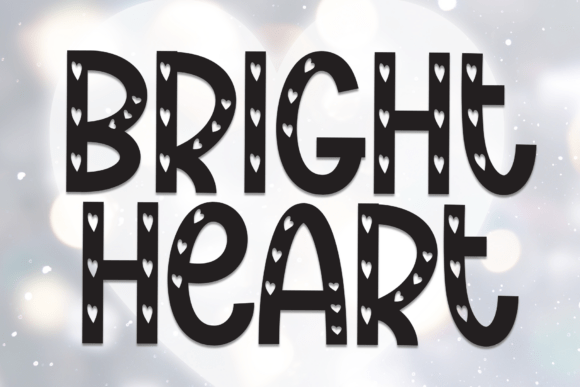
Bright Heart Font: The Perfect Blend of Sweet and Friendly
In the world of typography, fonts play a crucial role in conveying the tone and personality of a design. When it comes to creating artful wedding invitations, personalized cards, or any other creative project, selecting the right font can make all the difference. This is where the Bright Heart Font comes in – a warm, inviting display font that embodies the perfect balance of sweet and friendly. With its delicate, handwritten charm, this adorable typeface is sure to bring a touch of playfulness to your designs.
What Makes Bright Heart Font Special?
- Handwritten Charm: Bright Heart Font boasts a unique, handwritten aesthetic that adds a personal touch to any design.
- Perfect Balance of Sweet and Friendly: This font strikes the ideal balance between sweetness and friendliness, making it suitable for a wide range of creative projects.
- Cute and Fun Aesthetic: With its playful and fun design, Bright Heart Font is sure to bring a smile to your audience’s faces.
- Delightful and Unique Style: This font’s distinctive style sets it apart from other typefaces, making it an excellent choice for designers looking to add a touch of personality to their work.
Creative Projects that Bright Heart Font is Perfect For
Bright Heart Font is an incredibly versatile typeface that can be used in a variety of creative projects. Here are some ideas to get you started:
- Artful Wedding Invitations: Add a touch of romance and whimsy to your wedding invitations with Bright Heart Font.
- Personalized Cards: Create one-of-a-kind greeting cards for special occasions, such as birthdays, anniversaries, or holidays.
- Social Media Graphics: Use Bright Heart Font to create engaging social media graphics that showcase your brand’s personality.
- Branding and Packaging: Add a playful touch to your brand’s packaging and marketing materials with this delightful font.
Benefits of Using Bright Heart Font
So, why choose Bright Heart Font for your creative projects? Here are some benefits of using this lovely typeface:
- Instant Personality: Bright Heart Font adds a dash of personality to your designs, making them more relatable and engaging.
- Emotional Connection: The font’s sweet and friendly aesthetic helps create an emotional connection with your audience.
- Versatility: Bright Heart Font can be used in a wide range of creative projects, from digital designs to print materials.
- Easy to Read: Despite its playful design, Bright Heart Font is easy to read, making it perfect for body text and headings.
Tips and Tricks for Using Bright Heart Font
To get the most out of Bright Heart Font, here are some tips and tricks to keep in mind:
- Pair with Neutral Backgrounds: Pair Bright Heart Font with neutral backgrounds to make it stand out.
- Experiment with Colors: Try out different color combinations to find the perfect match for your design.
- Use for Headings and Titles: Bright Heart Font is perfect for headings and titles, adding a touch of personality to your designs.
- Mix with Other Fonts: Experiment with pairing Bright Heart Font with other fonts to create a unique and visually appealing design.
In conclusion, Bright Heart Font is a delightful and unique typeface that adds a touch of playfulness to any design. With its perfect balance of sweet and friendly, this font is sure to bring a smile to your audience’s faces. Whether you’re creating artful wedding invitations, personalized cards, or social media graphics, Bright Heart Font is an excellent choice. So, why not give it a try and see how it can transform your designs?